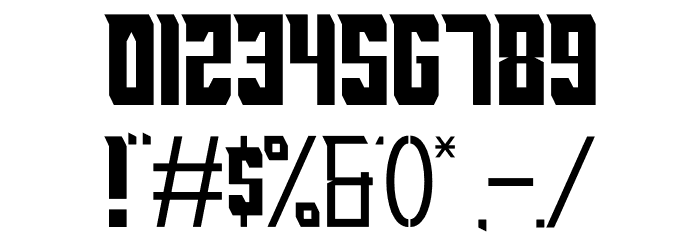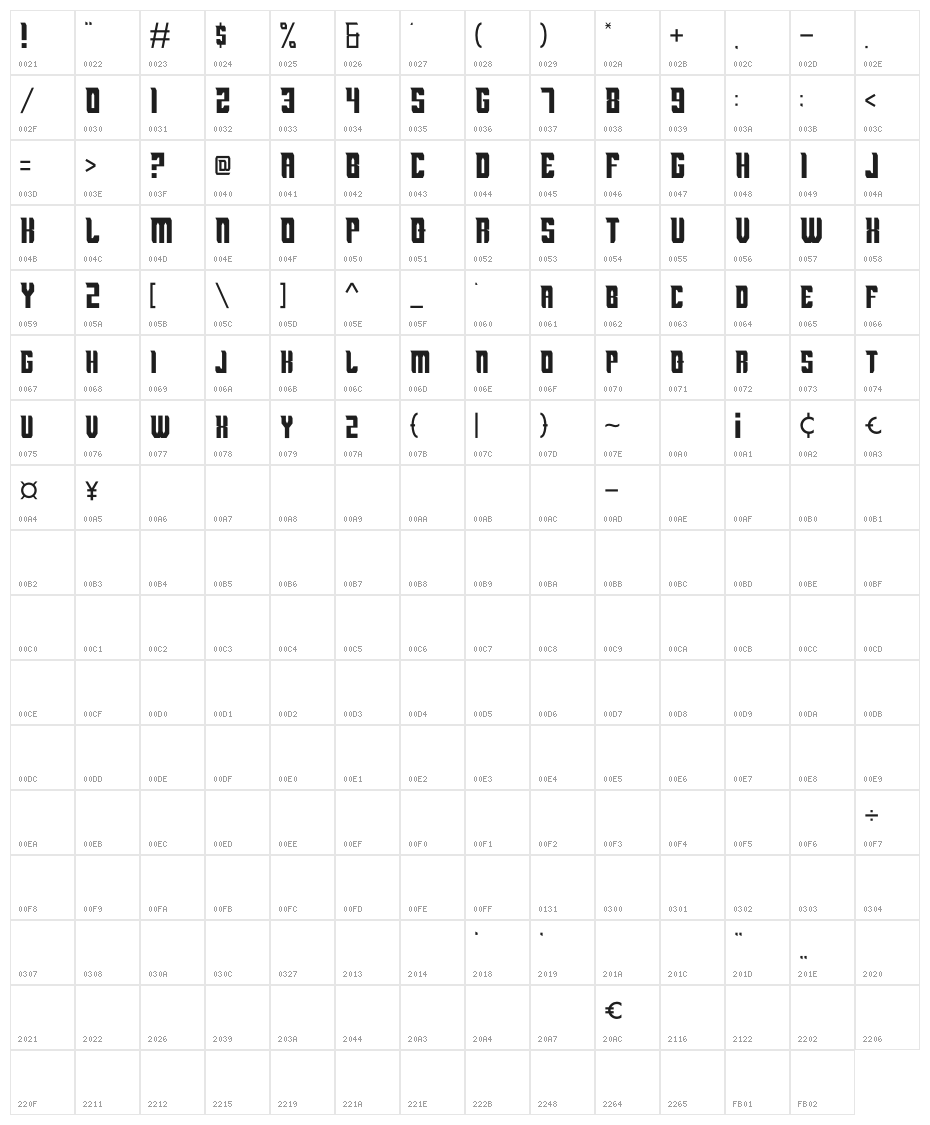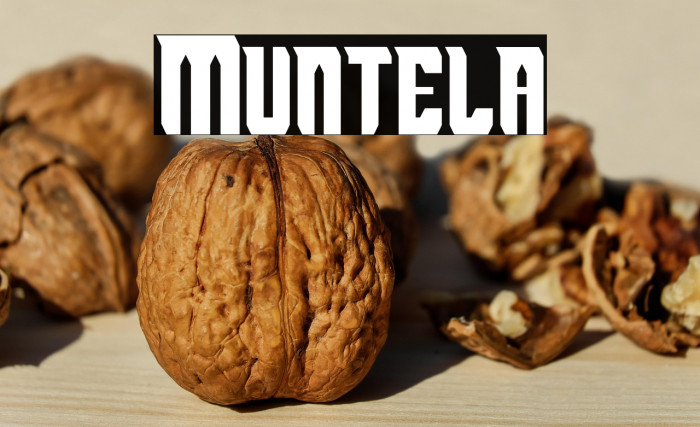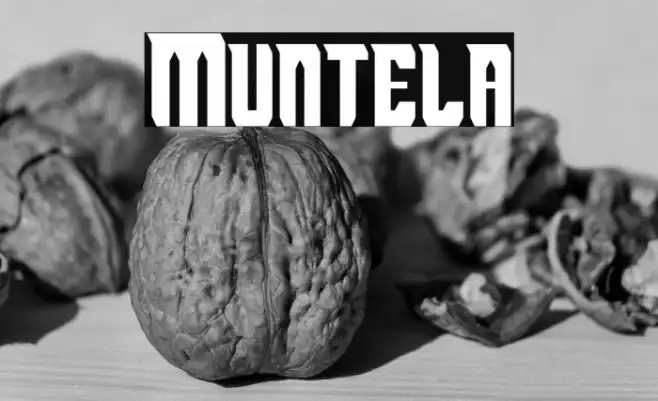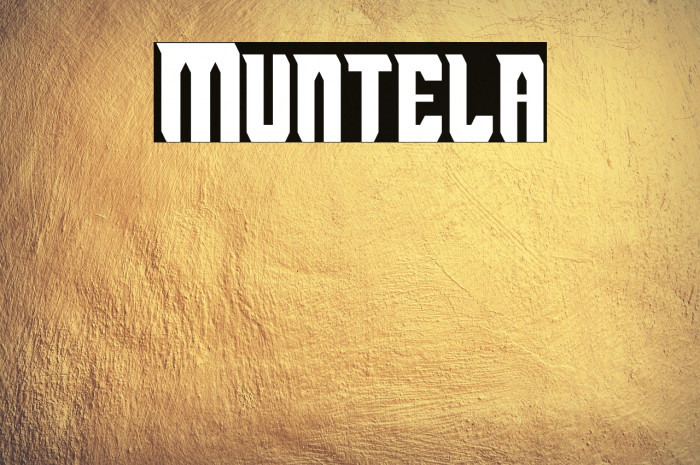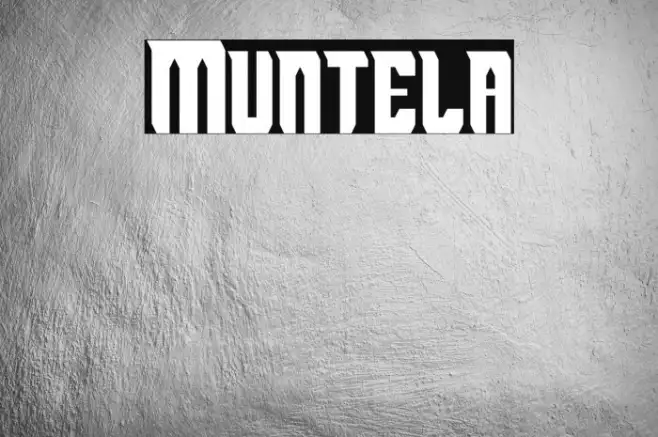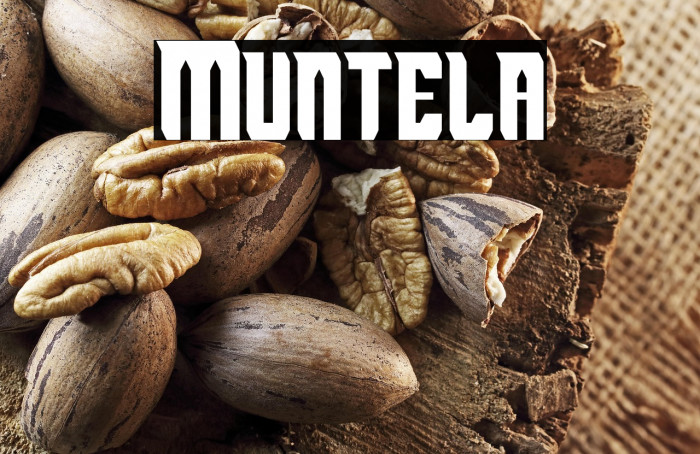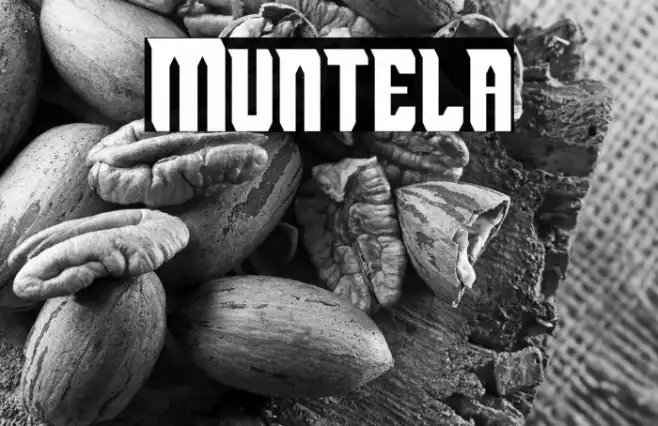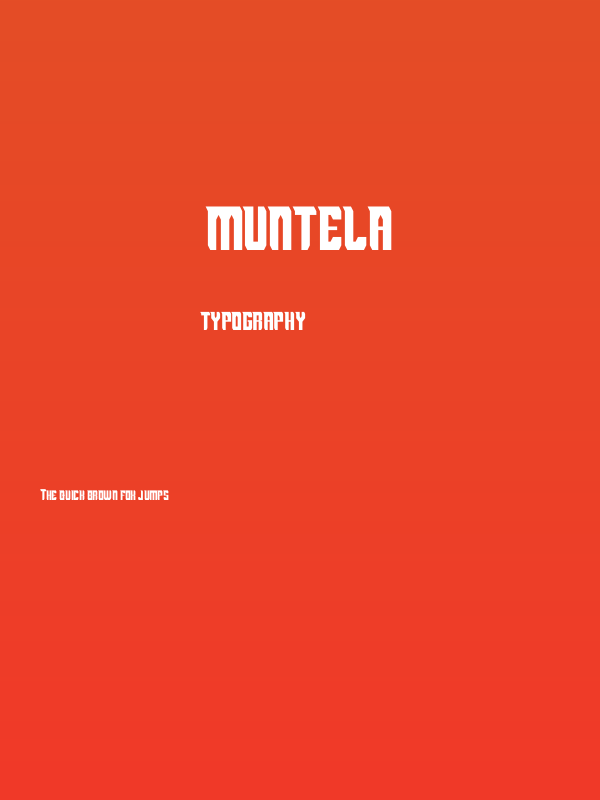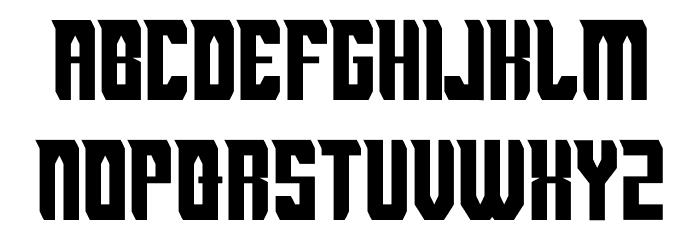
Muntela Font
Muntela Description
This font features a bold, geometric design with strong, angular lines and a modern aesthetic. The characters are uniformly structured, with a consistent height and width that gives a sense of stability and strength. The uppercase letters are particularly striking, with sharp edges and a blocky appearance that commands attention. The numerals and special characters maintain the same bold style, ensuring a cohesive look across all text. This font is ideal for projects that require a strong visual impact, such as posters, headlines, and branding materials.
| Proposed Projects | Ideal for posters, headlines, branding materials, and any project needing a strong visual impact. |